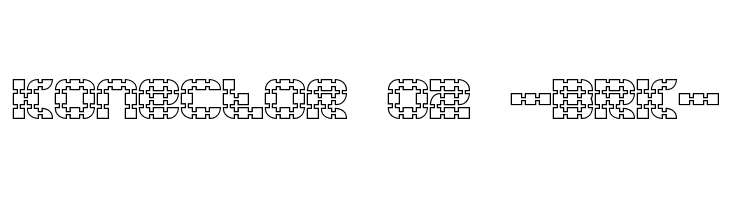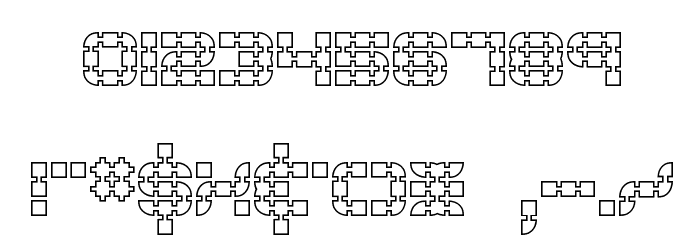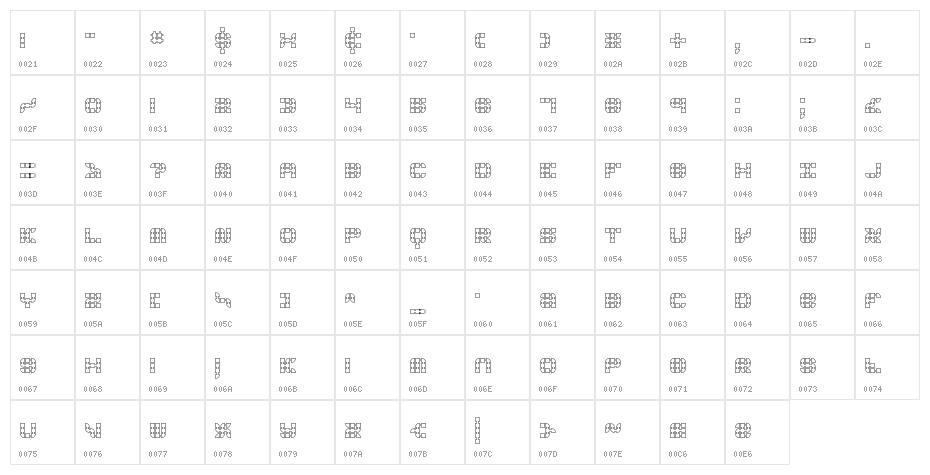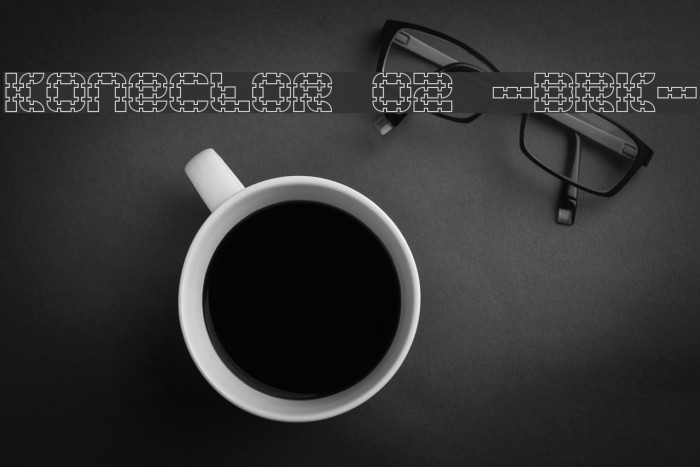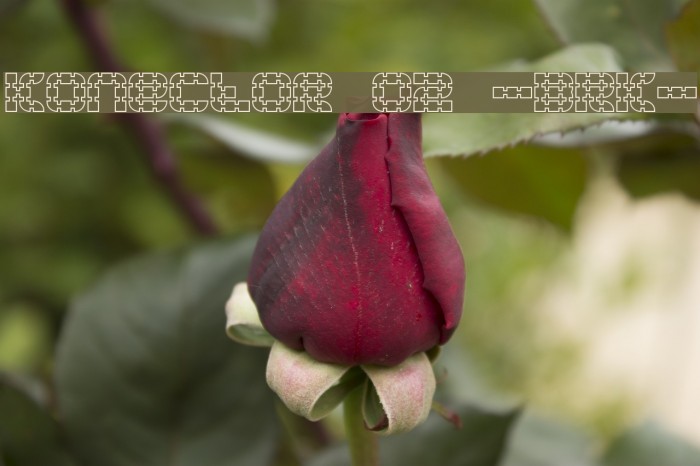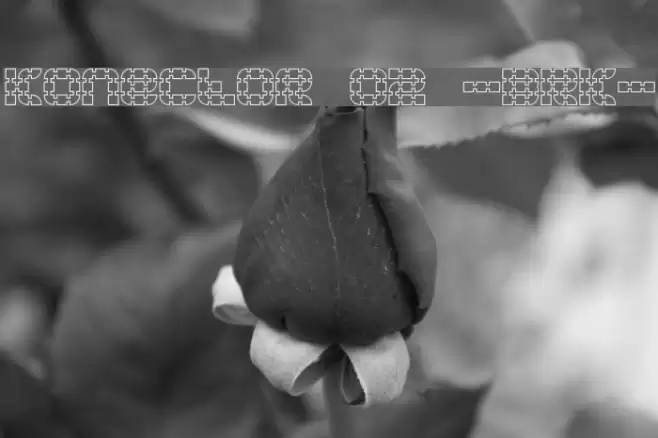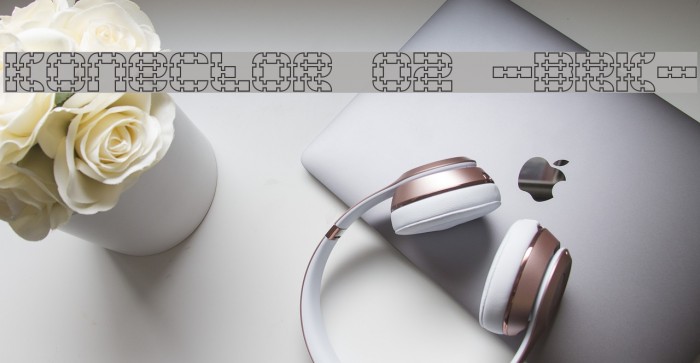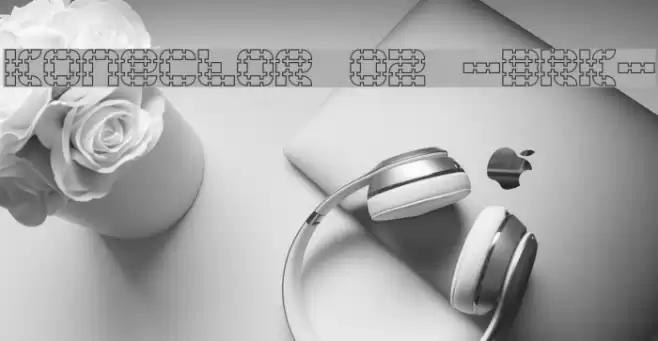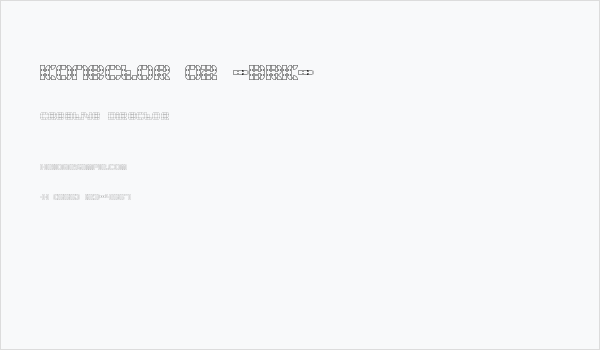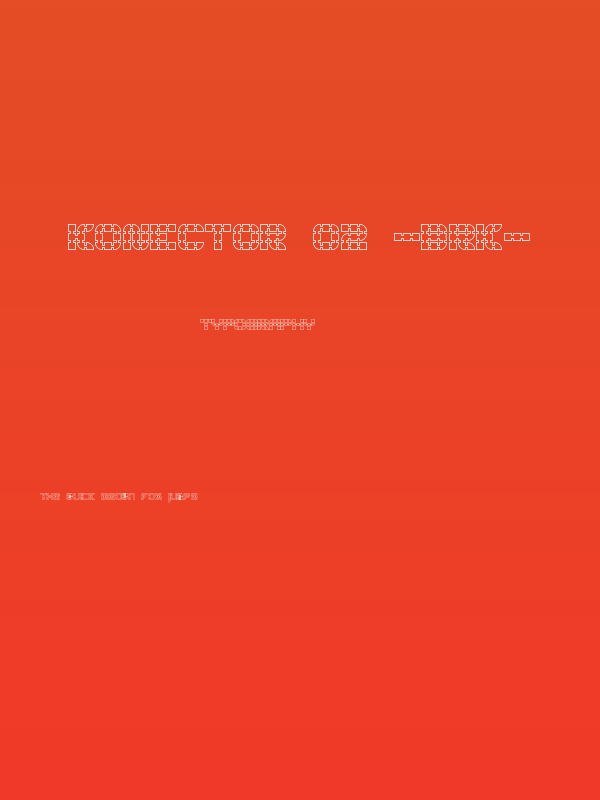
Konector O2 -BRK- Font
Konector O2 -BRK- Description
This font features a unique, interconnected design reminiscent of puzzle pieces fitting together. Each character is composed of bold, geometric shapes with a distinct outline, creating a visually striking and playful appearance. The letters and numbers maintain a consistent height and width, contributing to a uniform look across the typeface. The special characters follow the same design principles, ensuring cohesion throughout. This font's intricate design makes it stand out, ideal for creative and modern projects that require a touch of whimsy.
| Proposed Projects | Ideal for creative projects such as posters, logos, and branding materials that require a modern and playful touch. |